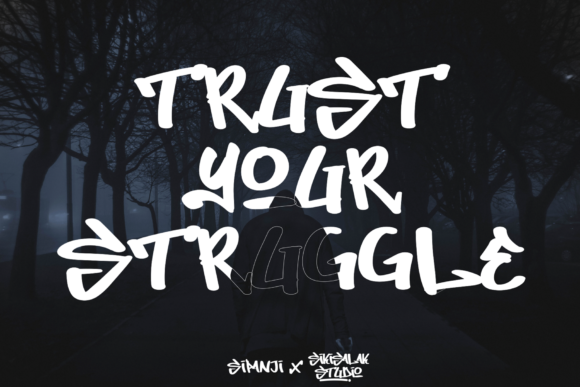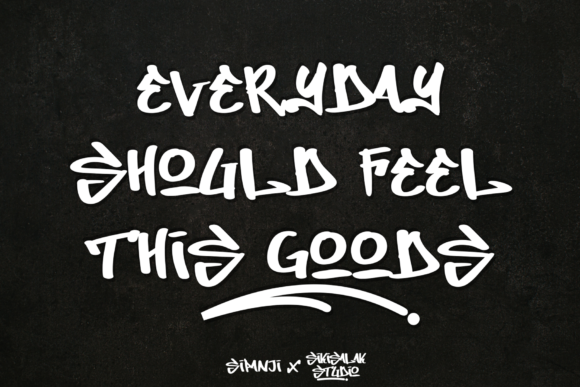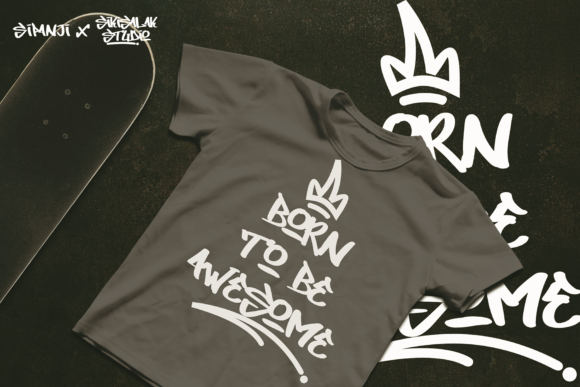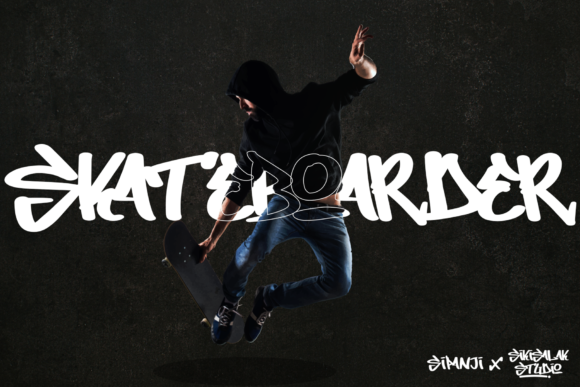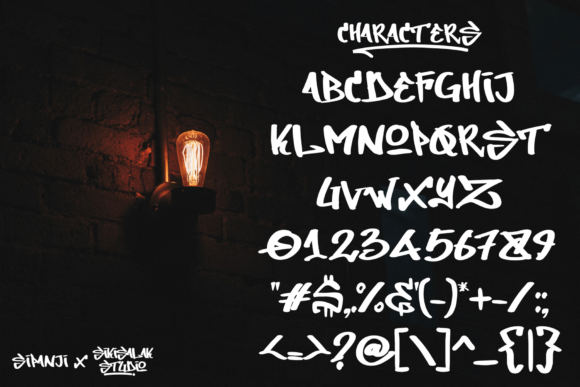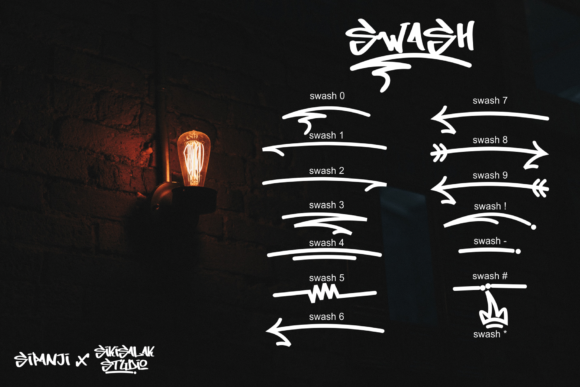
The Perfect Brush Stroke for Your Next Design Project
Have you ever been stuck in a creative rut, staring at a blank page or screen, desperately searching for that one thing that will bring your design to life? It’s like the entire world of typography is at your fingertips, but nothing seems quite right. Well, we’ve got some exciting news for you – enter the Dirty Lizard Graffiti Font, the ultimate display font designed to elevate your designs to new heights.
This bold, graffiti-style font is the perfect addition to any design project, whether you’re working on branding, headings, wedding designs, or even just a simple invitation. With its unique brush strokes and urban flair, the Dirty Lizard Graffiti Font adds a touch of sophistication and edge to any design, making it a valuable tool for designers looking to take their work to the next level.
Dirty Lizard Graffiti Font Key Features
- Unique Characteristics: The Dirty Lizard Graffiti Font features a distinctive, hand-drawn style with bold lines and vibrant colors, making it ideal for creating eye-catching and dynamic designs.
- Characters and Glyphs: The font includes a comprehensive set of characters, including uppercase and lowercase letters, numbers, punctuation marks, and special characters, as well as a range of graffiti-inspired symbols and icons.
Dirty Lizard Graffiti Font Review
Overall, I’d say the Dirty Lizard Graffiti Font is a solid choice for those looking for a bold, edgy font. ✨ The font’s unique blend of graffiti and stencil styles makes it perfect for designs that need a bit of an edge. I particularly love how the font’s irregularities add to its charm.
- ✨ Unique style that’s perfect for edgy designs
- ✨ Easy to read, even at smaller font sizes
- ✨ Great for use in logos, posters, and other promotional materials
- ⚠️ Limited character set – may not be suitable for longer blocks of text
- ⚠️ Can be a bit difficult to pair with more formal fonts
- ⚠️ May not be suitable for designs that require a lot of precision or detail
Overall, I’d give the Dirty Lizard Graffiti Font 4 out of 5 stars. It’s a great choice for designers who want to add a bit of edge to their designs, but may not be suitable for every project. With a bit of creativity and experimentation, I’m sure you can find a way to make it work for you.
The Dirty Lizard Graffiti Font is ideal for:
1. Street art and graffiti-inspired designs.
2. Urban and edgy marketing campaigns.
3. Distressed or worn text effects in editorial or magazine design.
4. Handmade or DIY-style branding and packaging.
How do I access the font’s advanced features, such as ligatures and swashes?
The Dirty Lizard Graffiti Font includes advanced features such as ligatures and swashes, which can be accessed by using the font’s OpenType features. To access these features, you will need to have a design software that supports OpenType, such as Adobe Illustrator or InDesign. In these applications, you can use the font’s “Character” or “Glyph” panel